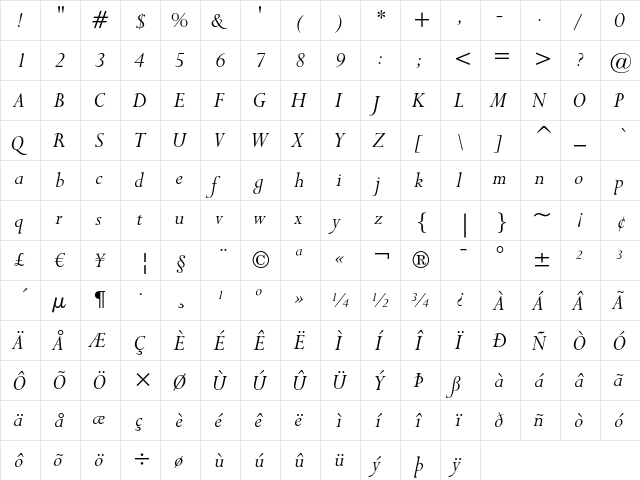
Lapidary 333 Italic
Design Context for Lapidary 333 Typeface
Lapidary 333 offers clean, dependable letterforms without strong stylistic allegiance, making it a practical choice for designers who need flexibility. The slanted form adds forward momentum and visual energy.